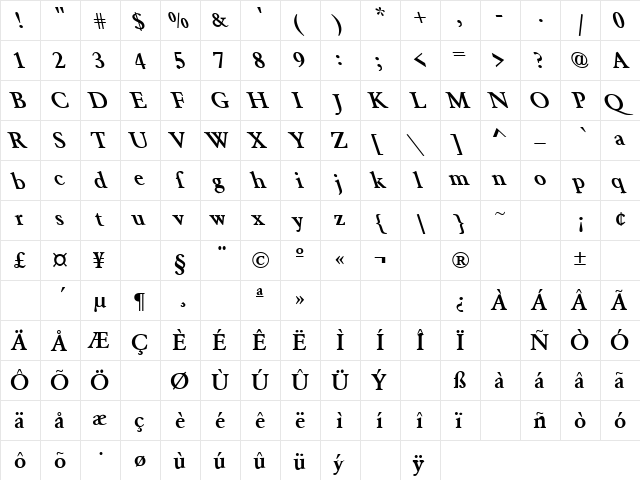
Ummama 2 Regular
Design Context for Ummama 2 Typeface
Ummama 2 is a composed and adaptable typeface that performs quietly and consistently across a wide range of design contexts.